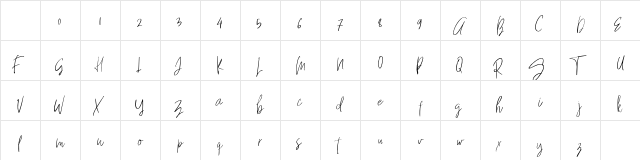
Complete Hey Fonallia Free Version glyph index. Displaying only characters natively supported by Hey Fonallia Free Version font.
Hey Fonallia is a composed and adaptable typeface that performs quietly and consistently across a wide range of design contexts.